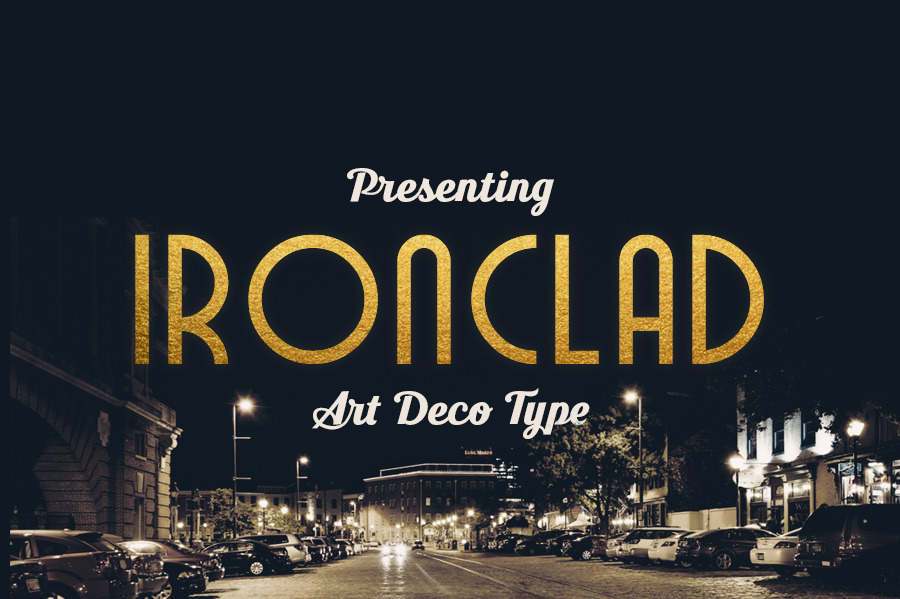
Ironclad is an Art Deco typeface in 3 weights. It includes multilingual uppercase letters, numbers and punctuation. The gold effect in the cover image is not included.
All the curves of Ironclad are made of circles.